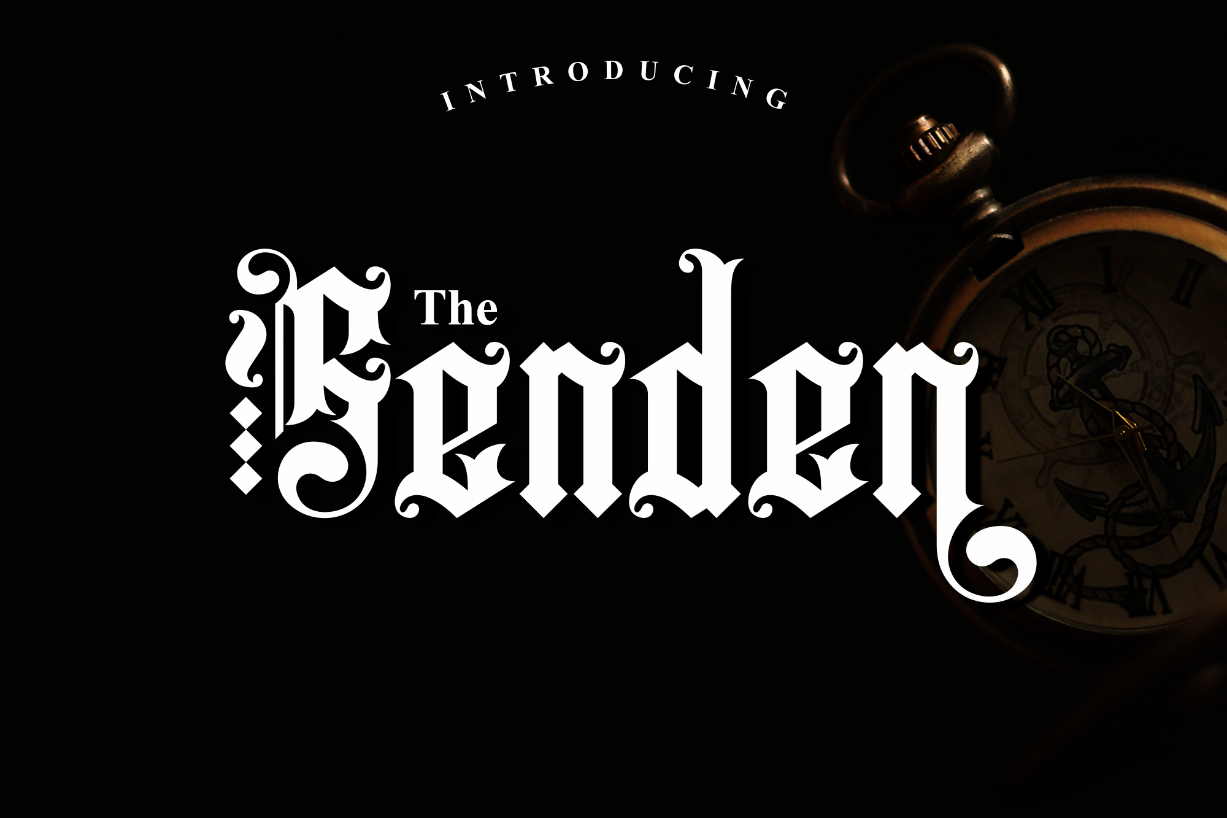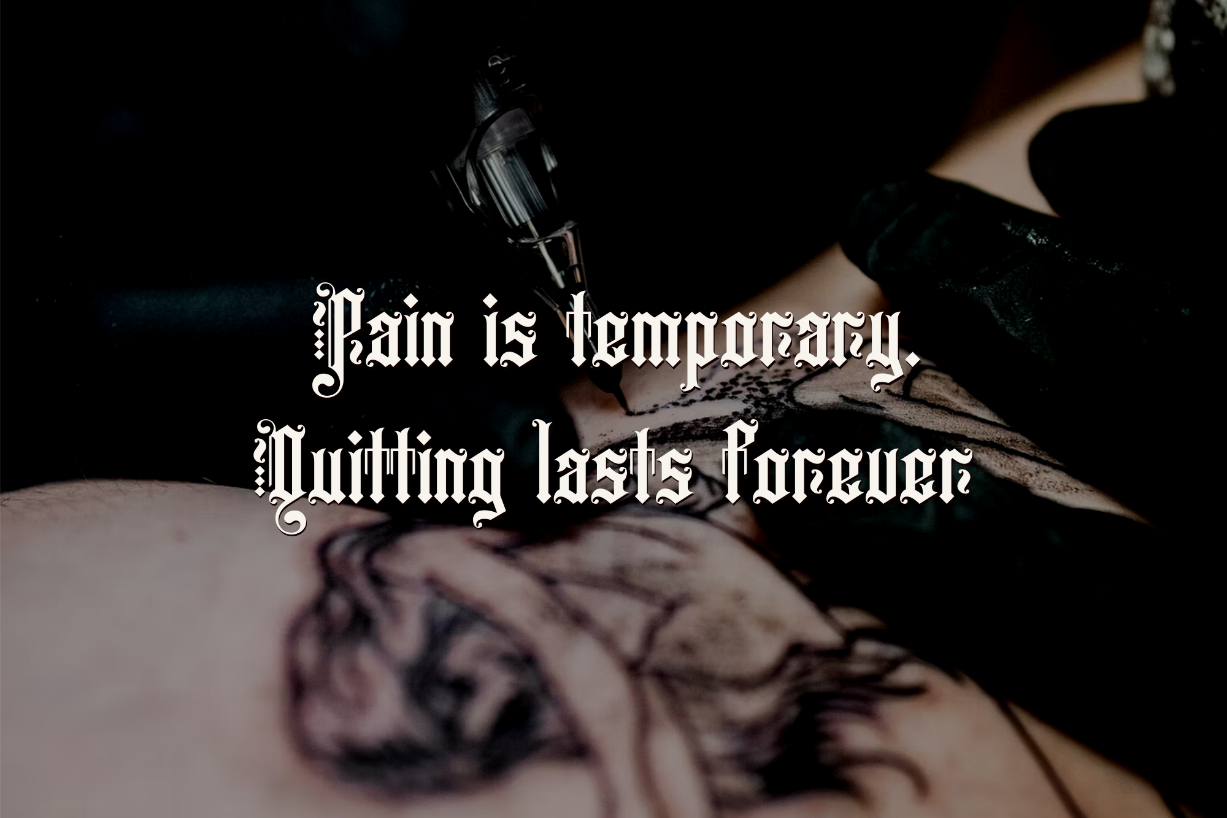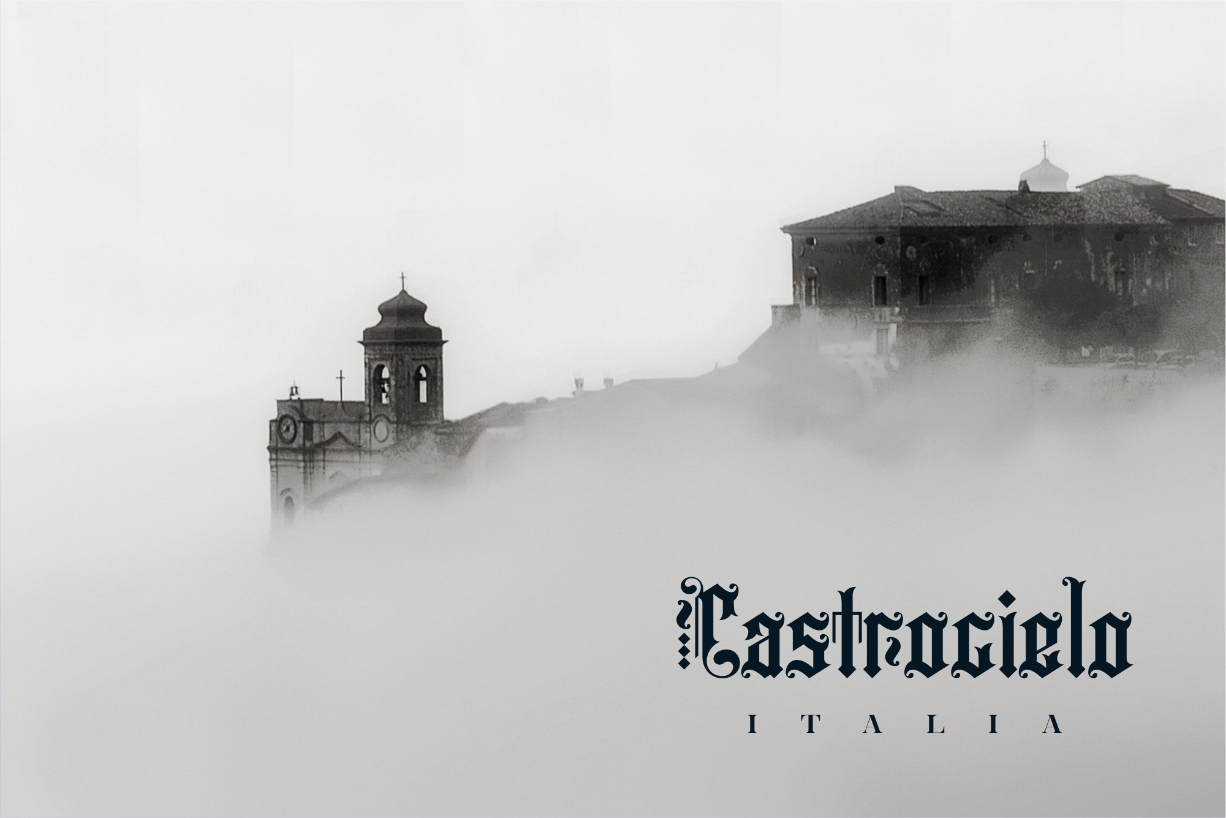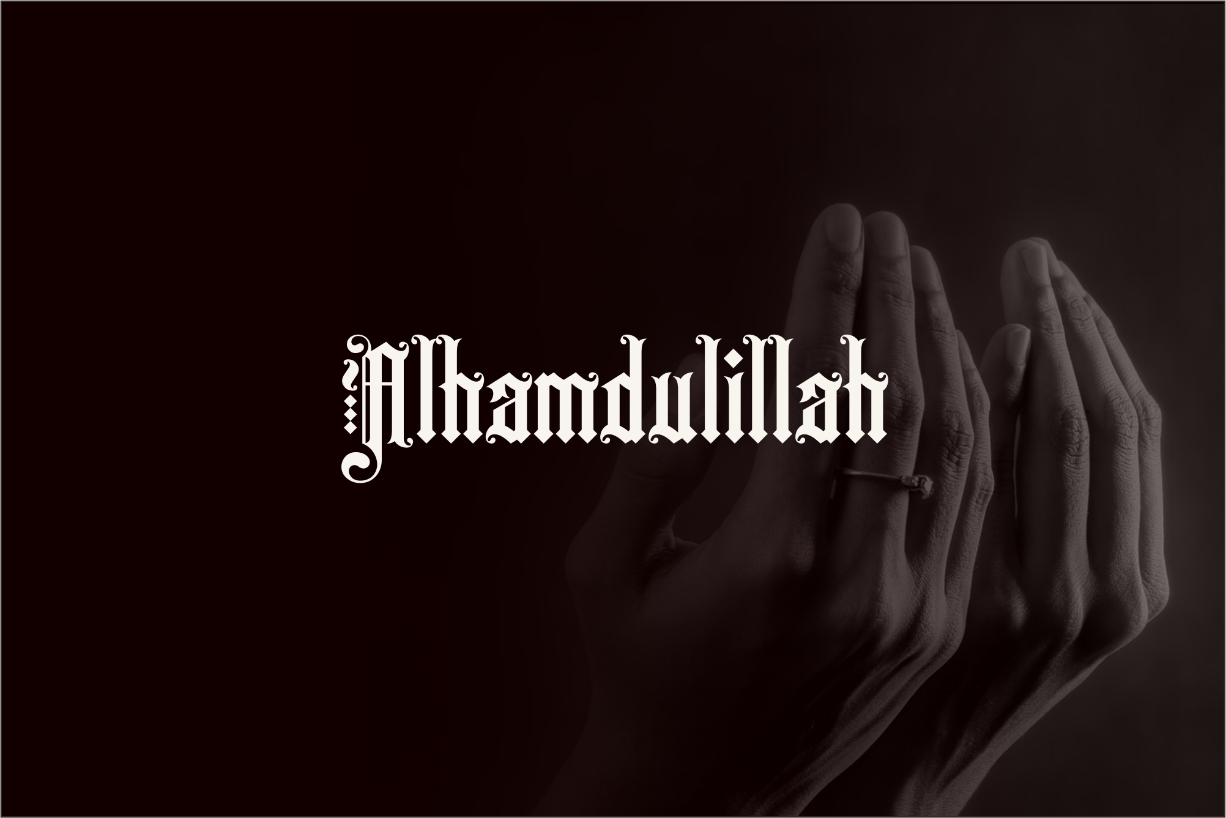
The Senden Font
About The Senden Font
The Senden is a bold and thick lettered blackletter font. Add it confidently to your projects, and you will love the results.